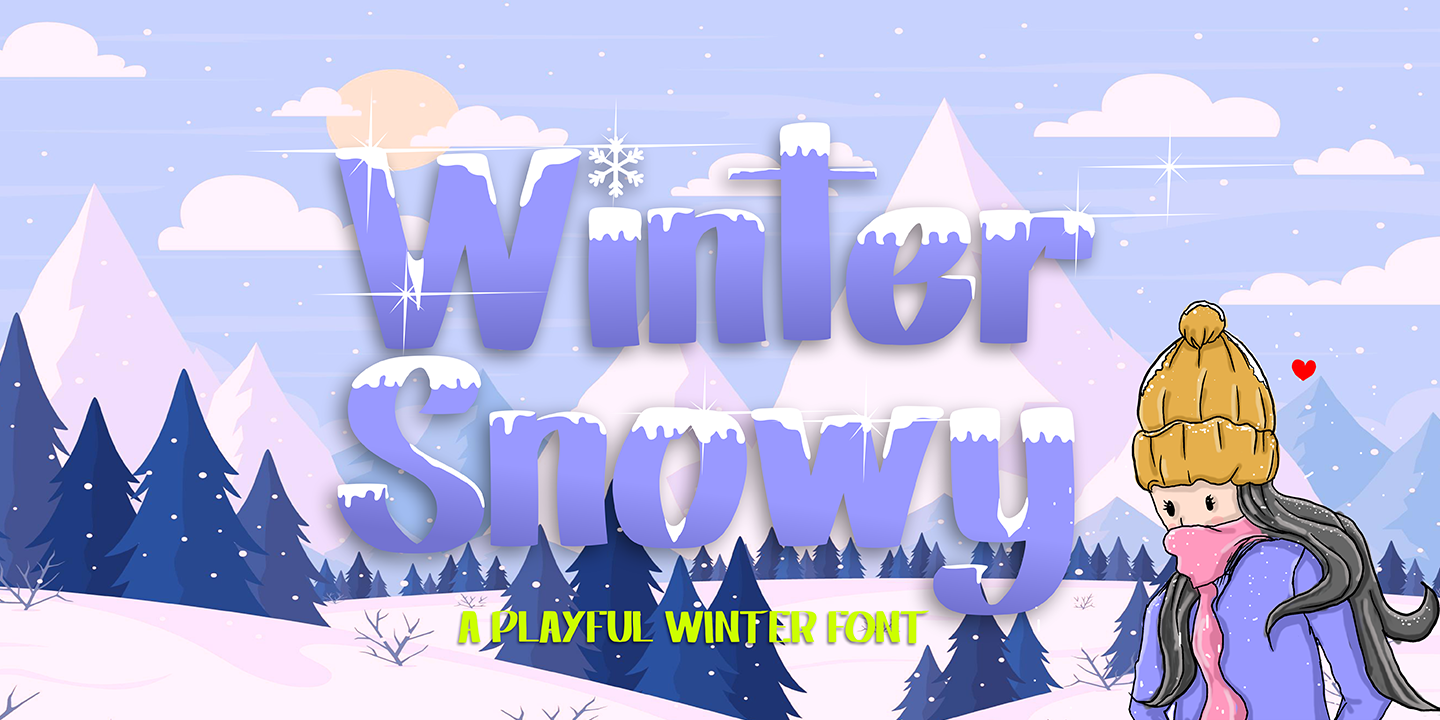
Winter Snowy Font is perfect for Christmas greeting cards, winter holiday promotions, ski resort branding, winter sports marketing, holiday party invitations, seasonal retail campaigns, snow-themed packaging, winter festival advertising, cozy cabin marketing, and festive seasonal design projects. This enchanting typeface works exceptionally well for holiday businesses, winter sports companies, seasonal retailers, and festive brands that want to communicate winter magic, holiday cheer, and the sparkling beauty of fresh snowfall in their visual communications.
What makes Winter Snowy Font exciting is its magical ability to capture the wonder and beauty of fresh snowfall through delicate typographic artistry. The enchantingly crafted letterforms feature crystalline details, frost-like textures, and snow-inspired character that instantly transport viewers to winter wonderlands filled with sparkling snow and holiday magic. Each character has been carefully designed with winter authenticity and festive charm that ensures excellent readability while maintaining distinctive seasonal appeal. The font's magical personality makes it perfect for brands that want to communicate winter joy, holiday celebration, and the enchanting beauty of snowy landscapes.
The Winter Snowy Font family includes multiple winter variations featuring Light Snow, Regular, Heavy Snow, and Frost styles with additional decorative elements including snowflake motifs and icy flourishes. Each style maintains the font's characteristic winter charm while providing different levels of seasonal intensity and festive atmosphere. The complete family ensures brand consistency across all materials while giving designers the flexibility to create magical layouts that capture the sparkling energy and winter wonder of snowy season celebrations.
Professional designers and seasonal brand specialists will appreciate how Winter Snowy Font Free Download transforms ordinary projects into magical winter experiences. Whether you're designing for holiday campaigns, winter sports brands, or seasonal celebrations, this font delivers exceptional performance in creating memorable winter impressions. The crystalline character shapes and snow-inspired styling make it particularly effective for holiday marketing, seasonal packaging, and festive content where winter authenticity matters most.
The versatility of Winter Snowy Font extends across numerous winter and holiday design applications. It works beautifully in holiday branding, winter advertising, seasonal packaging, festive promotions, and snow-themed campaigns. The font's magical presence makes it ideal for brands targeting holiday shoppers, winter enthusiasts, and audiences seeking authentic seasonal experiences and winter celebration.
For designers seeking a font that embodies winter magic with seasonal authenticity, Winter Snowy Font represents the perfect festive choice. Its snow-kissed appearance suits seasonal brands while maintaining excellent legibility across all media. The font's crystalline baseline and winter-inspired proportions create enchanting visual hierarchies that celebrate seasonal beauty and communicate authentic winter wonder.